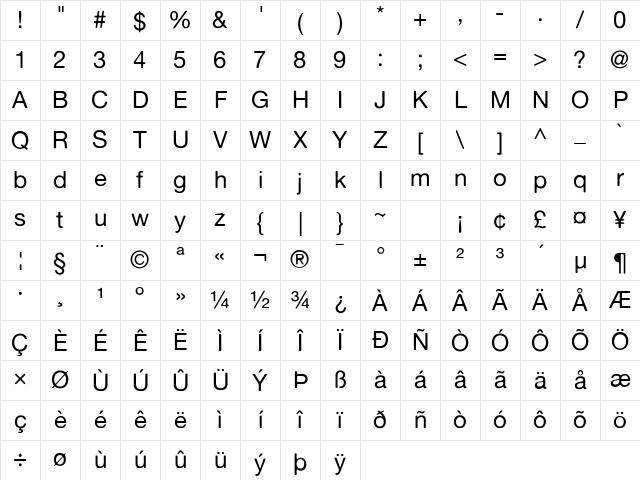
Complete Alte Haas Grotesk Regular glyph index. Displaying only characters natively supported by Alte Haas Grotesk Regular font.
Alte Haas Grotesk takes a clean, functional approach - its unadorned letterforms prioritise legibility and work reliably across screen and print environments.
Font Pairing: Works well alongside a characterful serif or display font that can carry the expressive load while Alte Haas Grotesk handles the functional copy.
Pro Tip: Use Alte Haas Grotesk for UI labels, navigation, and short-form body copy where clean legibility is the priority.